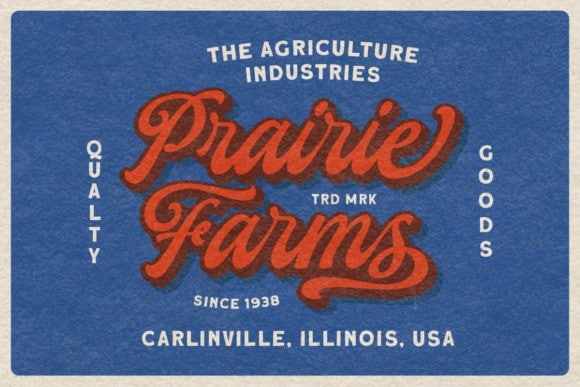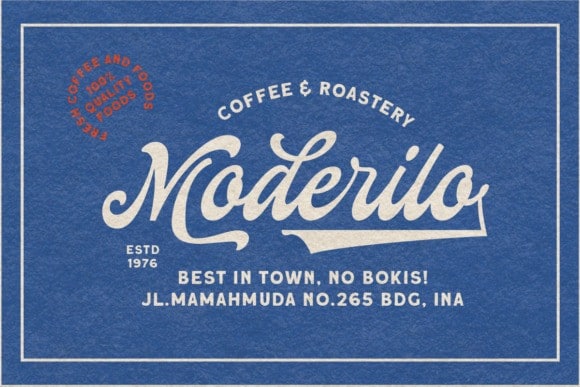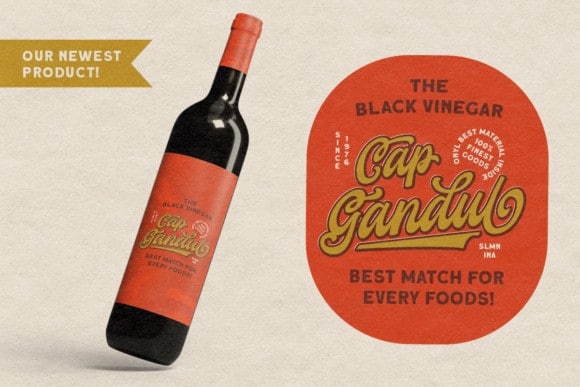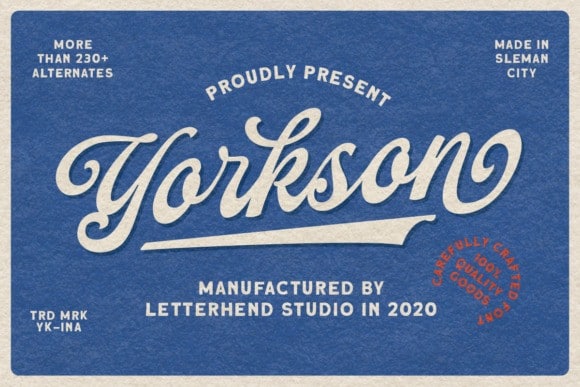
Yorkson Script Font
Yorkson Script Font is a stylish and original multi-functional font. It’s designed and shared by letterhend. This typeface is a stylish and incredibly retro script font. It looks stunning on wedding invitations, thank you cards, quotes, greeting cards, logos, business cards and every other design which needs a handwritten touch. Also in this font there are stylistic alternates and swashes that will make your design even more attractive and interesting.